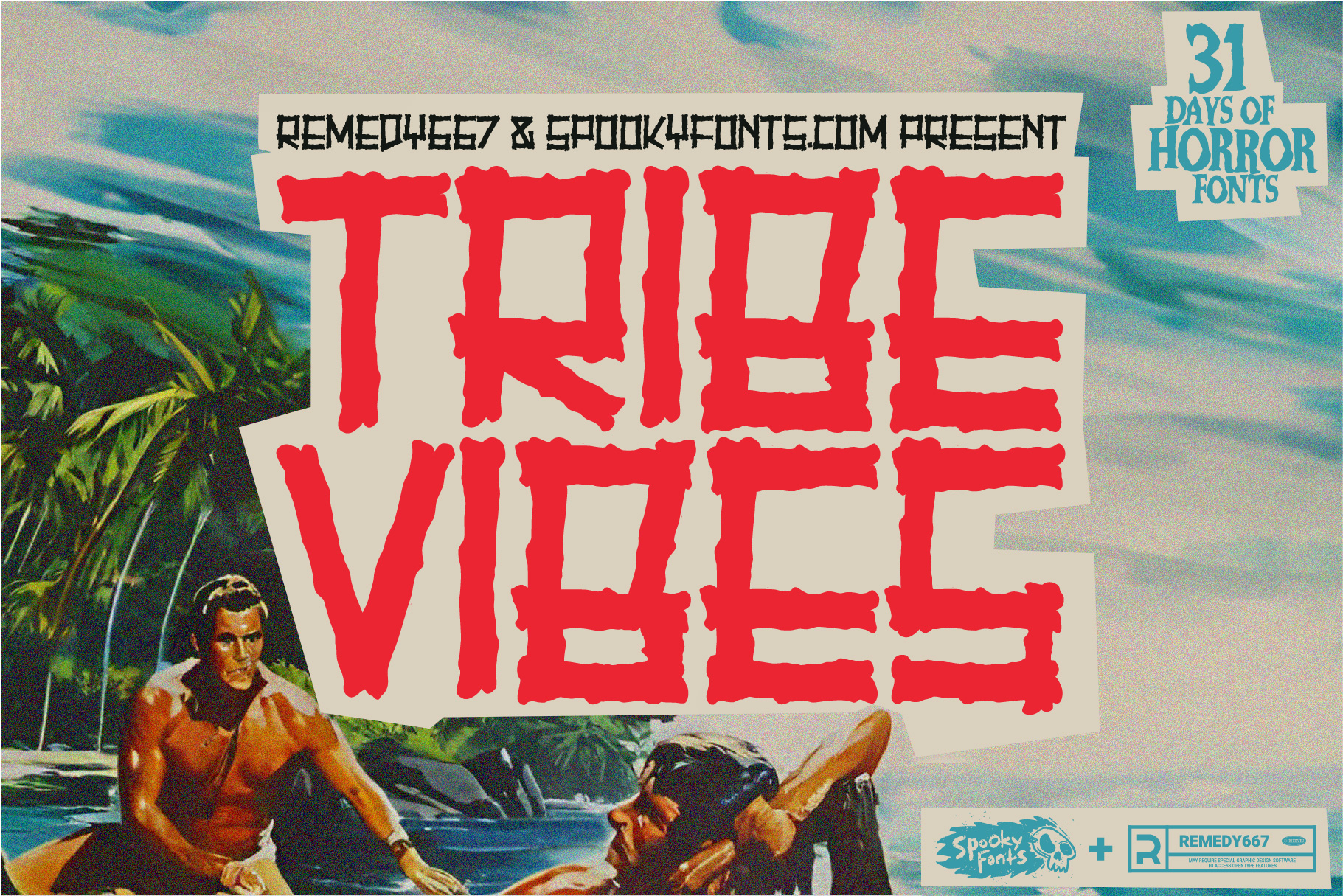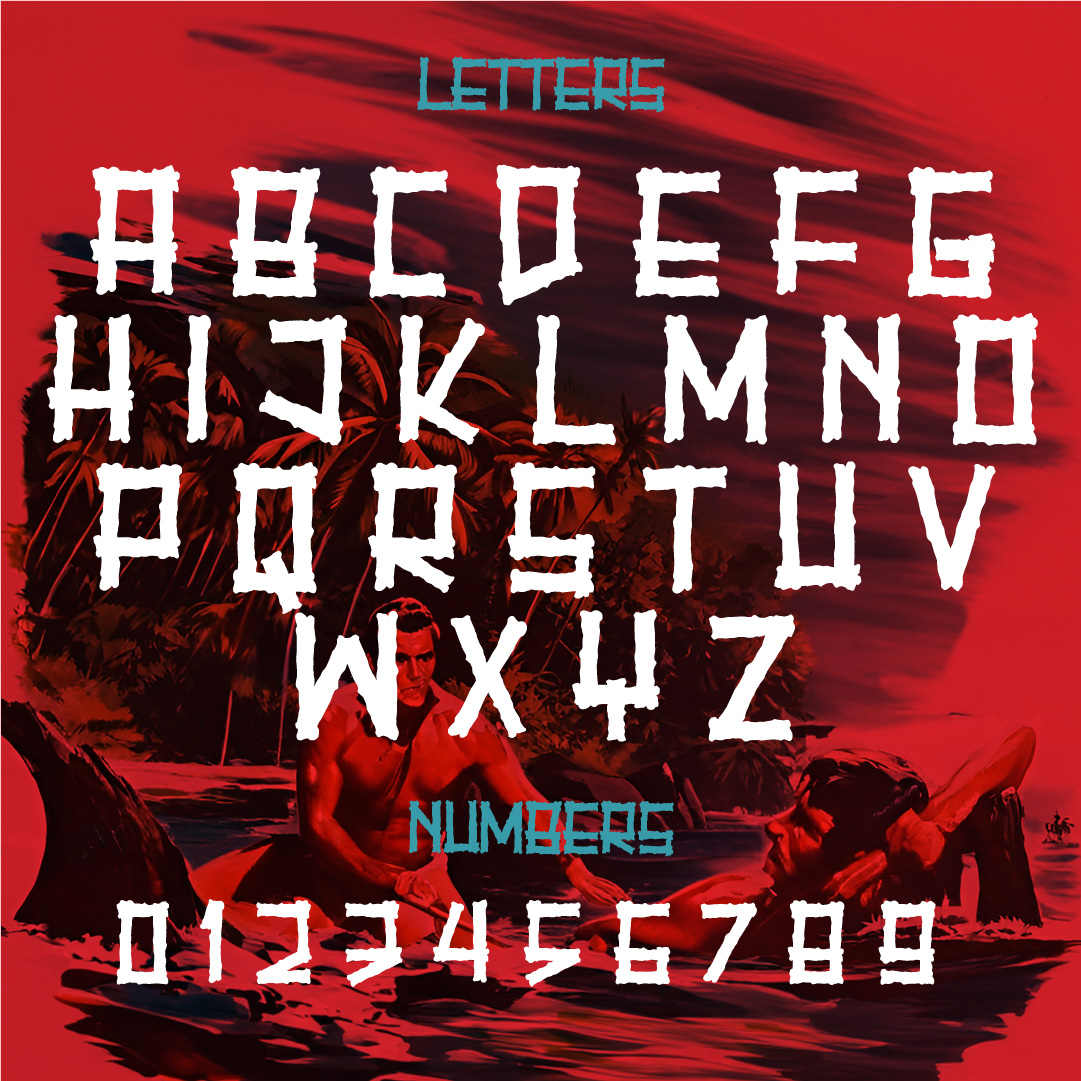
Tribe Vibes
A devilishly dark tiki font for eerie gatherings and macabre cocktail parties.
Step into the sinister world of Tribe Vibes – a dark tiki party typeface that will transport you to an eerie gathering of lost souls. With its hauntingly beautiful design, this font is perfect for creating spine-chilling invitations, wicked signage, and bone-rattling posters. Each letter drips with mystery and intrigue, adding an otherworldly allure to your projects.
Unleash the power of Tribe Vibes and watch as your designs come alive with supernatural energy. Its intricate details and macabre accents bring a sense of foreboding that will send shivers down your audience’s spines. From the twisted branches entwining the letters to the ghostly figures lurking in the shadows, every stroke tells a chilling tale.
Transform any event into a ghoulish affair by incorporating Tribe Vibes into your party decorations or haunted house props. This spooky typeface creates an unsettling atmosphere unlike anything you’ve experienced before. Whether it’s Halloween festivities or simply indulging in your dark side year-round, Tribe Vibes is here to ensure that every gathering exudes bone-chilling vibes that will leave everyone trembling with delight.